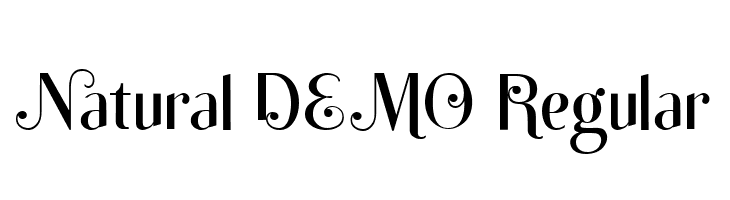
( Fonts by www.kimberlygeswein.com - Kimberly Geswein )
A playful, casual handwritten font with fluid strokes and a natural feel.
( Fonts by www.kimberlygeswein.com - Kimberly Geswein )
A playful, casual handwritten font with fluid strokes and a natural flow.
( Fonts by www.kimberlygeswein.com - Kimberly Geswein )
A casual, handwritten font with fluid and natural strokes.
( Fonts by www.kimberlygeswein.com - Kimberly Geswein )
A casual, handwritten font with fluid, natural strokes and a playful appearance.
A playful, casual handwritten font with a natural, creative flair.
( Fonts by Sara Dunn )
A casual, handwritten font with a natural flow and personal touch.
A playful, handwritten font with bold, irregular strokes and a casual feel.
A casual, handwritten font with a natural flow and slight slant.
( Fonts by tudy1311 )
A dynamic, expressive handwritten font with fluid strokes and a natural appearance.
A rugged, textured font with a natural, wild aesthetic.
A rustic, hand-drawn font with uneven edges and a natural feel.
( Fonts by Eva Barabasne Olasz )
A textured, stone-like serif font with a rugged, carved appearance.
( Fonts by 97Designs )
A casual, handwritten-style font with a natural, flowing appearance.
( Fonts by Måns Grebäck )
A graceful, cursive script font with a natural handwritten style.
( Fonts by Southype )
An organic, hand-drawn font with a textured, decorative style.
A decorative font with characters resembling twisted branches, ideal for nature or fantasy themes.
( Fonts by Falve )
A casual, handwritten font with a natural and personal touch.
A smooth, flowing script font with a natural handwritten style.
A casual, handwritten-style font with a natural and organic feel.
( Fonts by Youssef Habchi )
A fluid, cursive script font with elegant, natural handwriting style.
( Fonts by Youssef Habchi )
A fluid, cursive script font with a natural handwritten style.
( Fonts by Mats )
A lively, cursive font with a natural handwritten style.